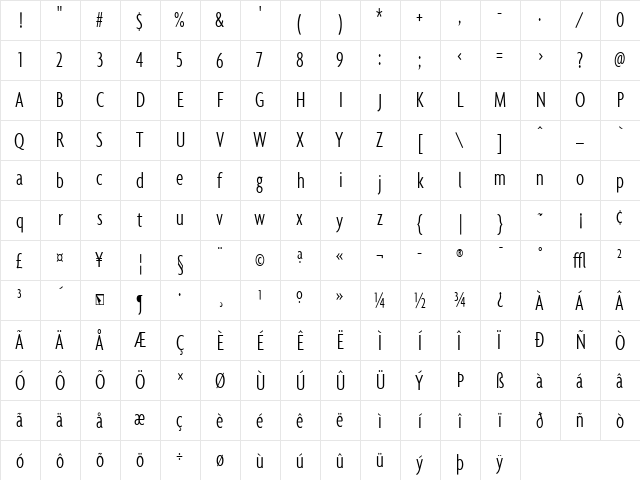
Agenda LightExtraCondensed Font Preview
| Style | LightExtraCondensed |
| Foundry | Copr. Greg Thompson. Agenda is a Trademark of Greg Thompson. Produced by The Font Bureau, Inc |
Design Context for Agenda Typeface
Agenda takes a measured approach to typography — its balanced proportions and neutral character make it a reliable workhorse for both digital and print work. The delicate stroke weight brings airiness and refinement to layouts. The condensed width makes it efficient for tight spaces without sacrificing legibility.